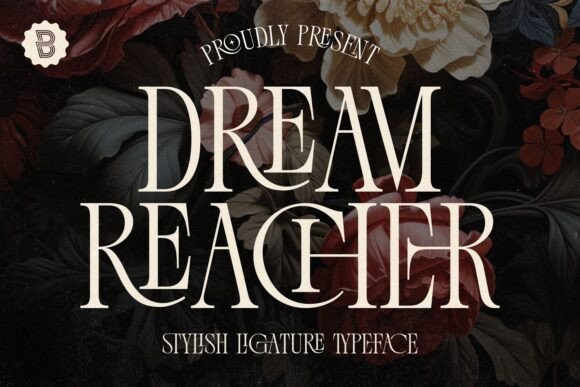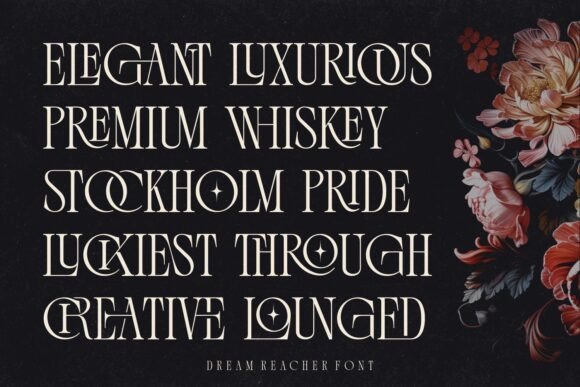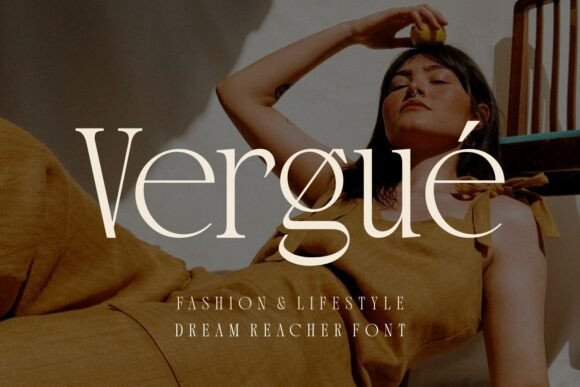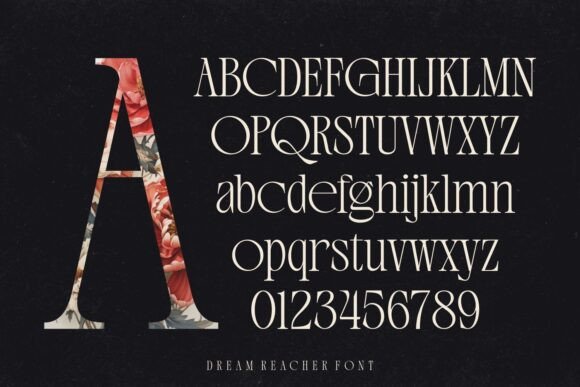
Dream Reacher Font
About the Dream Reacher Font
Get ready to be inspired by Dream Reacher Font, a fresh and dynamic typeface for modern creators. Dream Reacher is a creative stylish ligature serif font. Each letter is beautifully crafted and has an elegant look that attracts a tall, minimalist, and slender shape. Dream Reacher font is a typeface that combines the elegance of a serif with a unique and decorative binding, creating a more harmonious and visually appealing look. This font has alternate and ligature features, perfect for use in creative and artistic designs, such as logos, branding, headlines, titles, invitations, posters, and more.
Dream Reacher Font Usage Examples
Dream Reacher Font Example